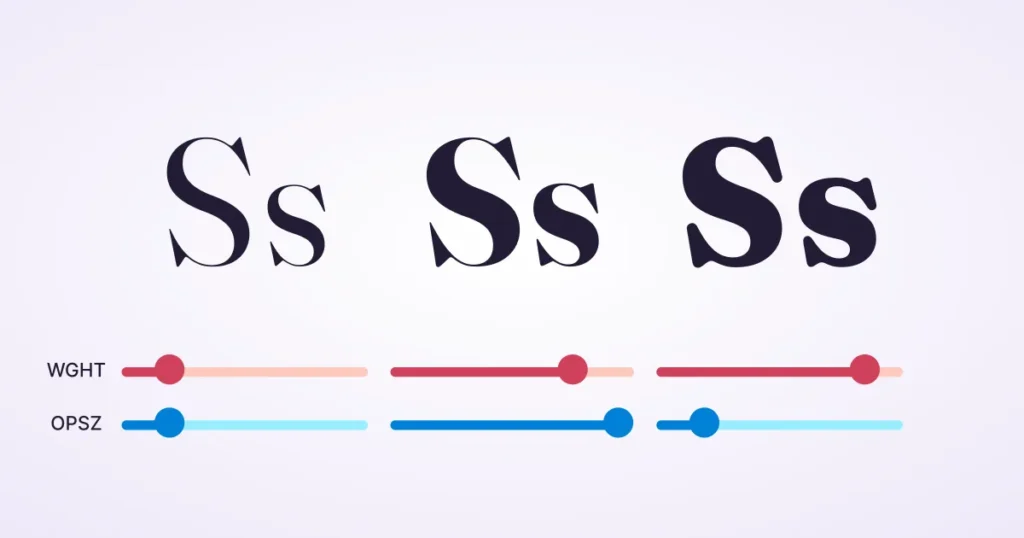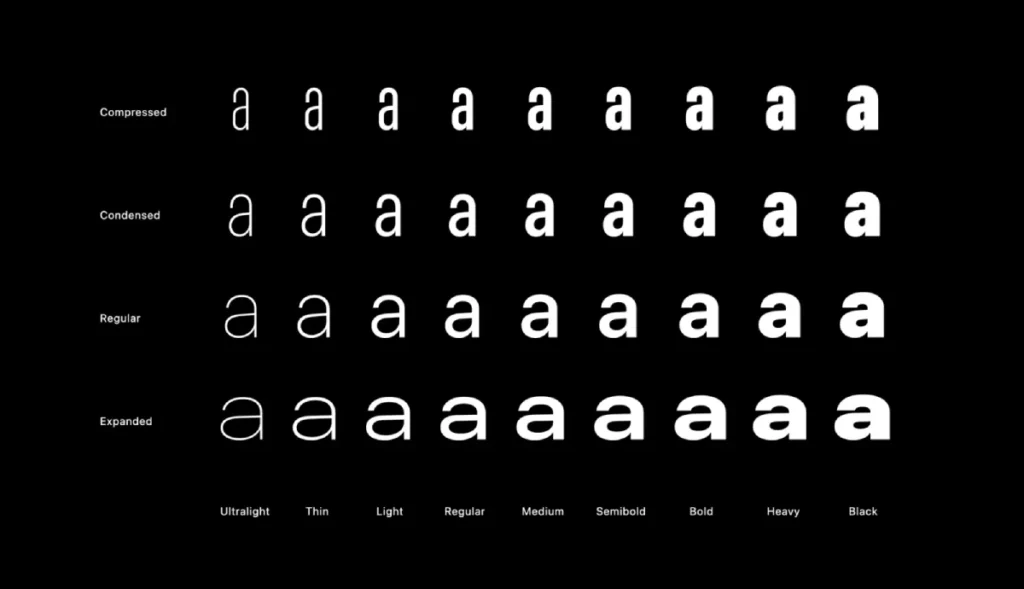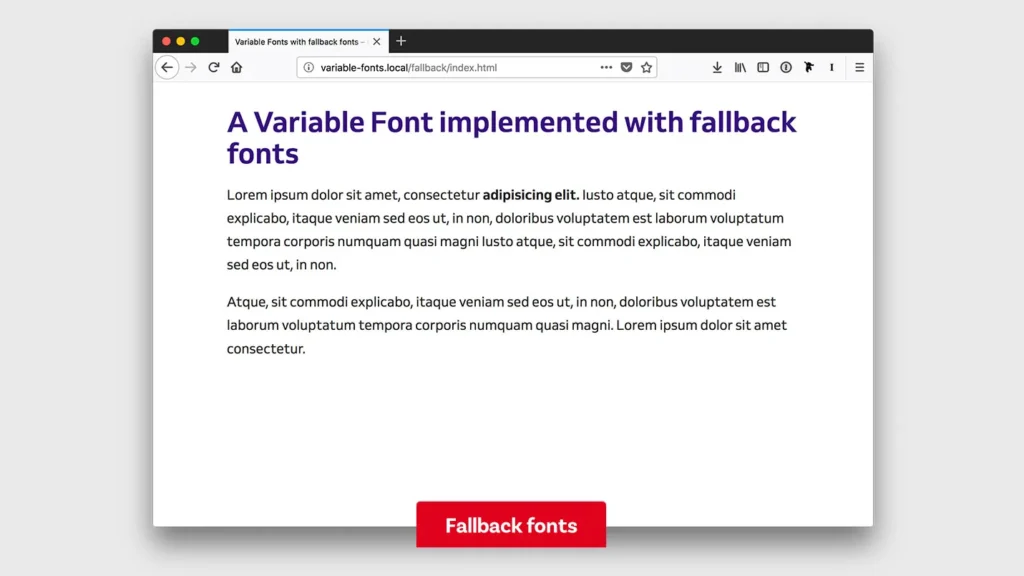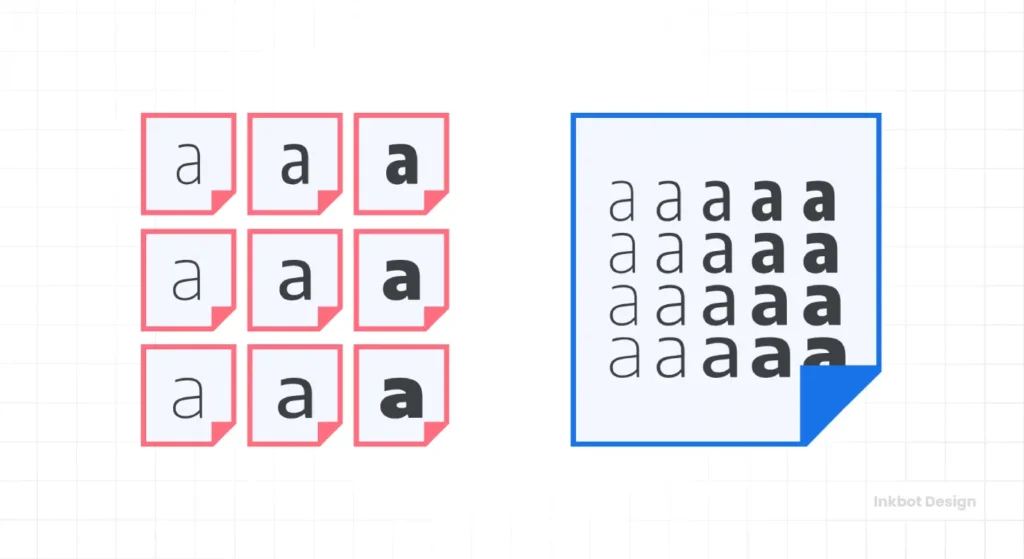
Variable Fonts Explained: Reduce Bloat and Fix Layout Shifts
I see it every day. A client comes to us with a “sleek” new website concept that looks fantastic in Figma but loads like a damp sponge on a 4G connection.
We dig into the waterfall chart, and there they are: twelve separate font files. Thin, Thin Italic, Light, Light Italic, Regular, Bold, Extra Bold… you get the picture.
It is a bloat crisis. You are forcing a user’s browser to handshake, download, and parse over 500KB of data just to render a headline. In an era where Google’s Core Web Vitals punish slow Largest Contentful Paint (LCP) times with lower rankings, this is negligence.
The solution has been available since 2016, yet I still see agencies ignoring it. It is called Variable Fonts.
This is not about making text “look pretty.” It is about rigorous engineering efficiency. It is about stripping away the fat of static typography and replacing it with a lean, adaptive system that serves your typography in branding without the performance tax. If you are still commissioning static font families for the web, you are wasting money and bandwidth.
Summary (TL;DR)
• Variable fonts consolidate many static files into one WOFF2, drastically reducing payload and HTTP requests for faster LCP and lower CLS.
• Axes like wght, wdth, opsz and GRAD enable precise, responsive typographic control without layout shifts or visual inconsistencies.
• Variable fonts improve accessibility and UX—optical sizing and adjustable spacing help low vision and neurodivergent readers.
• They lower bandwidth, carbon footprint, and often licensing complexity, delivering measurable performance and commercial benefits.
What are Variable Fonts?
Aa Typography Sample In Purple, Orange, And Charcoal Bands Showing Large A Glyphs, Lorem Text, And Measurement Scales.
A variable font is a single font file that behaves like multiple fonts. Technically known as OpenType Font Variations, this specification allows a type designer to include the entire range of a typeface’s stylistic variations—weights, widths, and slants—within one highly optimised binary file.
Instead of having a discrete file for “Bold” and another for “Regular,” a variable font contains the “master” outline and a set of mathematical deltas (instructions) that tell the browser how to morph that outline between extremes.
The Core Components:
• Single File Source: One file (usually .woff2) replaces the 4, 10, or 20 files you previously needed.
• Axes of Variation: The parameters you can manipulate. Common axes include Weight (wght), Width (wdth), and Slant (slnt).
• Interpolation: The ability to select any instance between the masters. You are not limited to “Bold (700)”; you can opt for “Bold-ish (642)” if it better suits the interface.
Consultant’s Note: Think of static fonts as a staircase—you can only stand on the specific steps the architect built. Variable fonts are a ramp. You can stand anywhere you like.
The Technical Anatomy: Axes of Variation
To understand why this matters for your brand, you need to understand the mechanics. Variable fonts operate on “Axes.” There are five registered (standard) axes defined by the OpenType specification, and designers can also invent custom axes.
Font Specimen A In Compressed Condensed Regular Expanded Ultralight Thin Light Regular Medium Semibold Bold Heavy Black.
1. Weight (wght)
This is the most common axis. In a static world, you buy Light, Regular, and Bold. In a variable world, you define a range, say 100 to 900.
• The Benefit: You can fine-tune the visual hierarchy. If a heading appears too heavy on a dark background (due to light irradiation), you can adjust the weight from 700 to 680 to optically correct it without altering the font file.
2. Width (wdth)
This controls the width of the characters.
• The Use Case: Responsive design. As a screen gets narrower (e.g., on a mobile device), you can programmatically reduce the headline font’s width to fit more characters on a line, thereby preventing awkward hyphenation.
3. Slant (slnt) vs. Italic (ital)
There is a technical distinction here. slnt mechanically shears the letters. ital switches between the upright and the cursive (italic) glyph forms.
• Why it matters: A variable font with an Italic axis allows you to switch between roman and italic structures instantly, often with a simple CSS toggle.